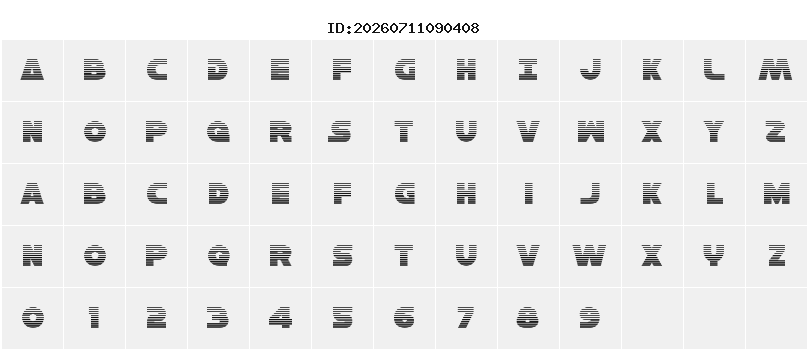
• Font Name: Han Solo Gradient
About Han Solo Gradient.ttf
Han Solo Gradient.ttf is a modern, elegant sans-serif font designed for ultimate readability and visual harmony. Perfect for branding, headlines, web design, and print materials.